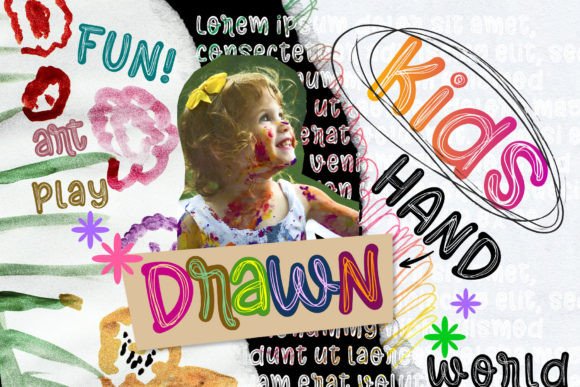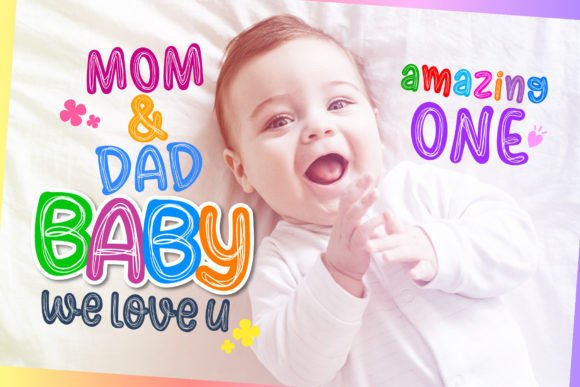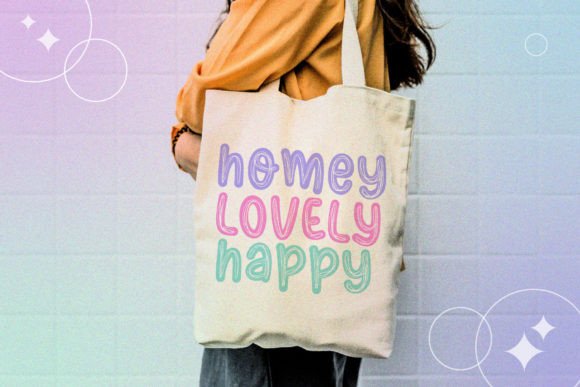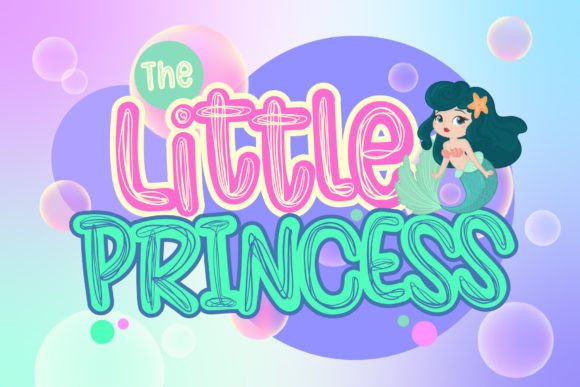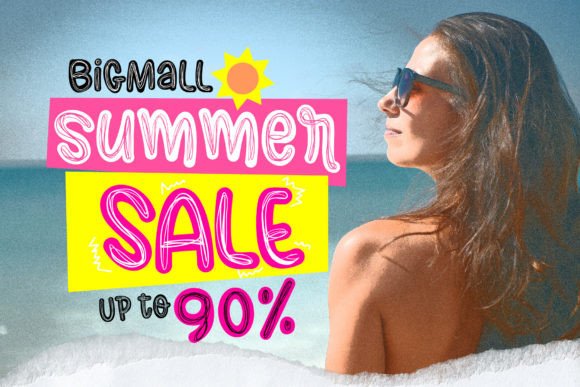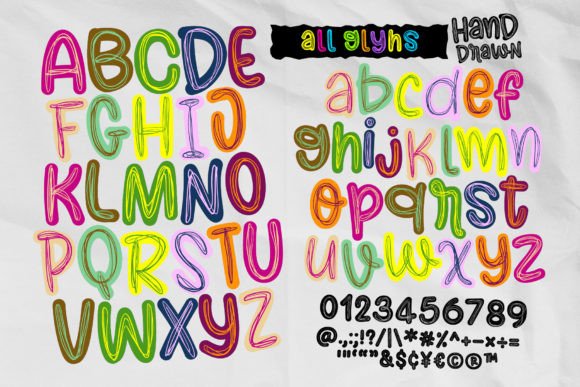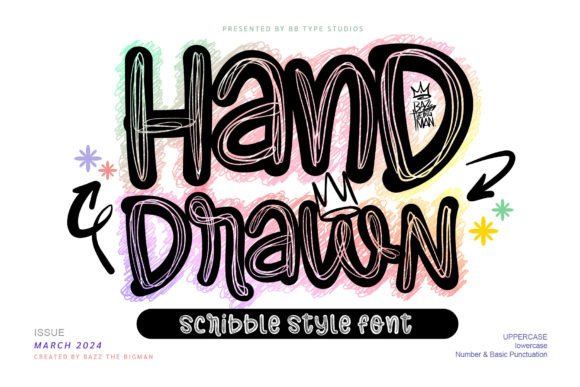
Adding a Personal Touch to Your Designs with Hand Drawn Fonts
When it comes to creating visually appealing designs, the right typography can make all the difference. One type of font that has gained popularity in recent years is the hand drawn font. A hand drawn font is a playful and fun typeface that features a hand-drawn, scribbled design, making it a great choice for designs aimed at children or anyone looking to add a touch of playfulness to their project.
What is a Hand Drawn Font?
A hand drawn font is a type of font that is designed to look like it was drawn by hand. The characters are typically irregular, with varying line widths and a more organic feel. This type of font is perfect for designs that require a personal touch, such as children’s book covers, posters, invitations, and more.
Characteristics of Hand Drawn Fonts
Hand drawn fonts have several distinct characteristics that set them apart from other types of fonts. Some of the key features of hand drawn fonts include:
- Irregular shapes: Hand drawn fonts often feature irregular shapes and characters that don’t conform to traditional typography rules.
- Varied line widths: The line widths of hand drawn fonts can vary, giving them a more organic and human feel.
- Playful feel: Hand drawn fonts are often playful and fun, making them perfect for designs aimed at children or anyone looking to add a touch of whimsy to their project.
Uses for Hand Drawn Fonts
Hand drawn fonts are versatile and can be used in a variety of designs, including:
- Children’s book covers: Hand drawn fonts are perfect for children’s book covers, as they add a touch of playfulness and whimsy.
- Posters: Hand drawn fonts can add a fun and playful touch to posters, making them perfect for advertising events or products.
- Invitations: Hand drawn fonts can add a personal touch to invitations, making them perfect for weddings, birthday parties, and other special events.
- Branding: Hand drawn fonts can be used in branding to add a touch of personality to a company’s logo or marketing materials.
Benefits of Using Hand Drawn Fonts
There are several benefits to using hand drawn fonts in your designs, including:
- Unique look: Hand drawn fonts offer a unique look that can help your designs stand out.
- Playful feel: Hand drawn fonts can add a playful feel to your designs, making them perfect for designs aimed at children or anyone looking to add a touch of whimsy.
- Flexibility: Hand drawn fonts can be used in a variety of designs, from children’s book covers to branding and advertising.
Tips for Using Hand Drawn Fonts
Here are a few tips for using hand drawn fonts in your designs:
- Use them sparingly: Hand drawn fonts can be overwhelming if used too much. Use them sparingly to add a touch of personality to your designs.
- Pair with other fonts: Hand drawn fonts can be paired with other fonts to create a unique and interesting look.
- Consider the audience: Hand drawn fonts are often perfect for designs aimed at children or anyone looking to add a touch of playfulness. Consider your audience when choosing a font.
Hand drawn fonts are a great way to add a personal touch to your designs. With their playful feel and unique look, they are perfect for designs aimed at children or anyone looking to add a touch of whimsy. Whether you’re creating a children’s book cover, poster, invitation, or branding materials, a hand drawn font can help your design stand out.
So next time you’re looking to add a touch of personality to your designs, consider using a hand drawn font. With their versatility and flexibility, hand drawn fonts are sure to become a staple in your design toolkit.